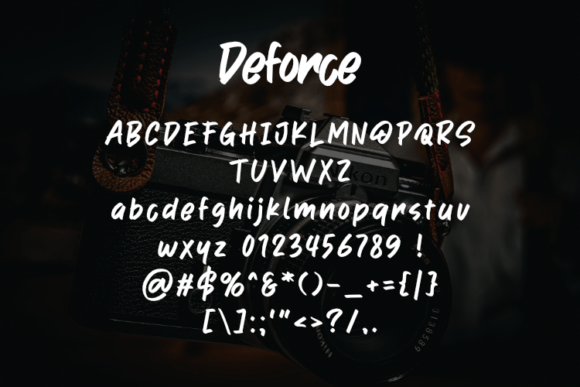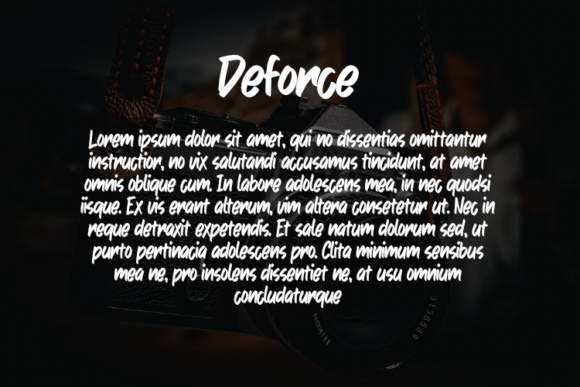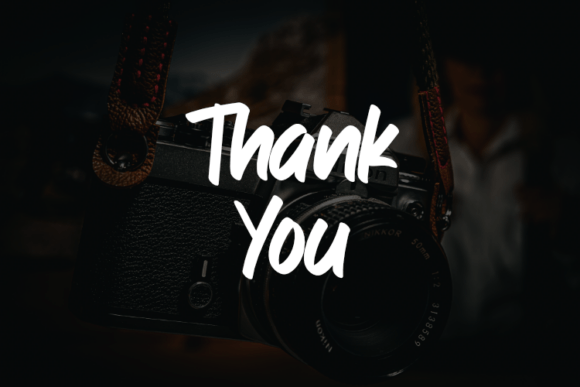
Unveiling Deforce: The Ultimate Font for All Your Design Needs
In the world of design, fonts play a crucial role in bringing creativity to life. A perfect font can elevate your design, making it stand out from the crowd. For designers and crafters, finding the right font can be a daunting task. However, with Deforce, your search is over. Deforce is a game-changing font, ideal for clothing and t-shirt design, that transcends limits and offers unparalleled versatility.
The Perfect Fusion of Elegance and Versatility
Deforce is more than just a font; it’s a design powerhouse. With its sleek and elegant design, Deforce is perfect for creating striking designs that leave a lasting impression. Whether you’re designing a logo, t-shirt, or any other visual material, Deforce is the perfect choice. The font’s versatility knows no bounds, making it suitable for various design projects, from fashion to advertising.
Ideal for Clothing and T-Shirt Design
Deforce is specifically designed to excel in clothing and t-shirt design. The font’s bold and elegant design makes it perfect for creating eye-catching designs that stand out on apparel. Whether you’re designing for a client or creating your own merchandise, Deforce is the perfect choice. Its unique design ensures that your creations will be noticed, making it an excellent addition to any designer’s arsenal.
Key Features of Deforce
- Elegant Design: Deforce boasts a sleek and elegant design, perfect for creating striking designs.
- Versatility: Deforce is suitable for various design projects, from fashion to advertising.
Deforce offers numerous benefits for designers and crafters. With Deforce, you can:
- Create striking designs that leave a lasting impression.
- Expand your design possibilities with a versatile font.
- Enhance your professional portfolio with high-quality designs.
In conclusion, Deforce is the ultimate font for all your design needs. Its perfect fusion of elegance and versatility makes it a must-have for every designer’s arsenal. With Deforce, creating striking designs is not just a possibility, but a delightful certainty. Whether you’re a professional designer or a crafter, Deforce is the perfect choice for your next design project. Get ready to elevate your designs and take your creativity to the next level with Deforce.